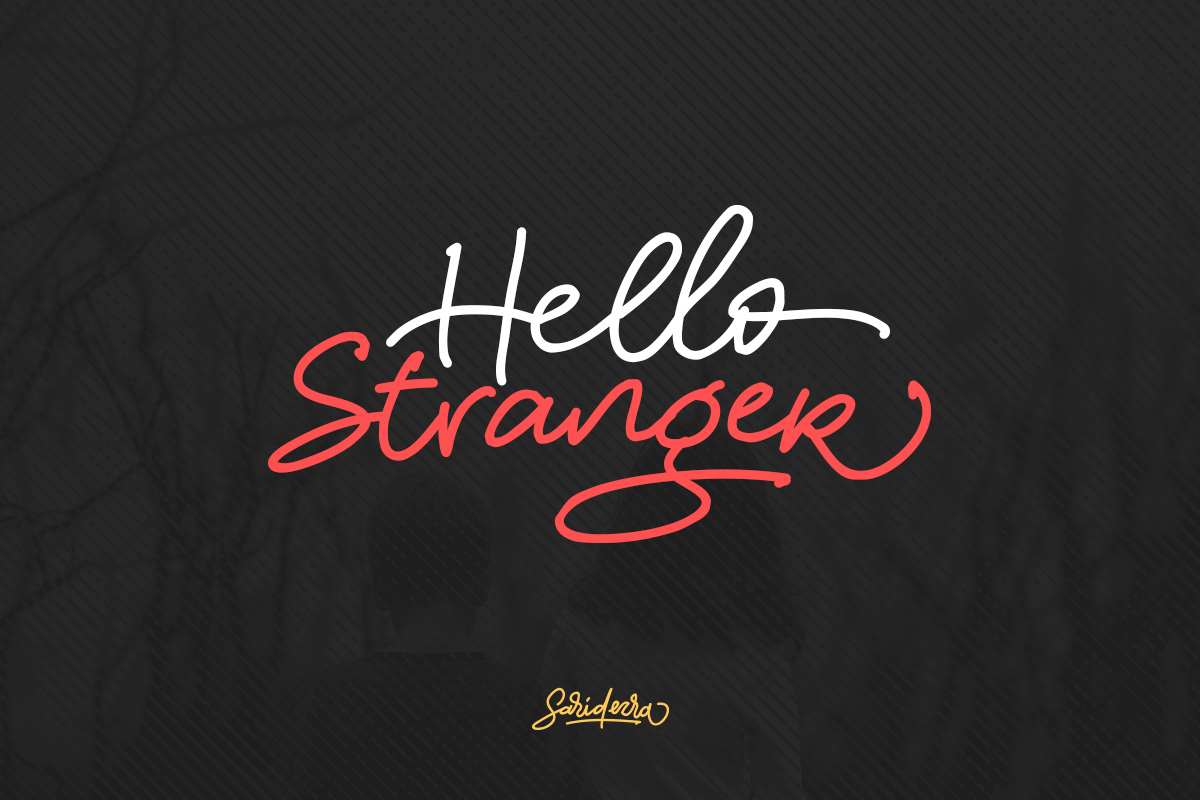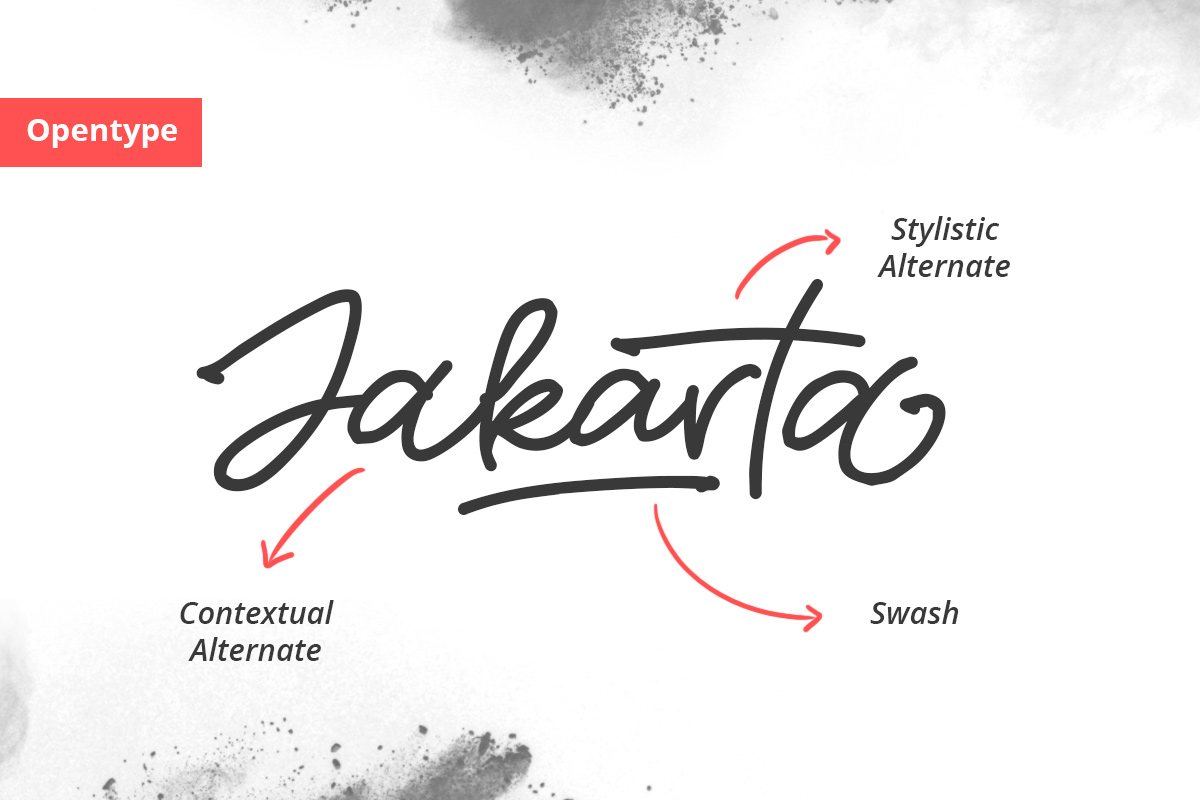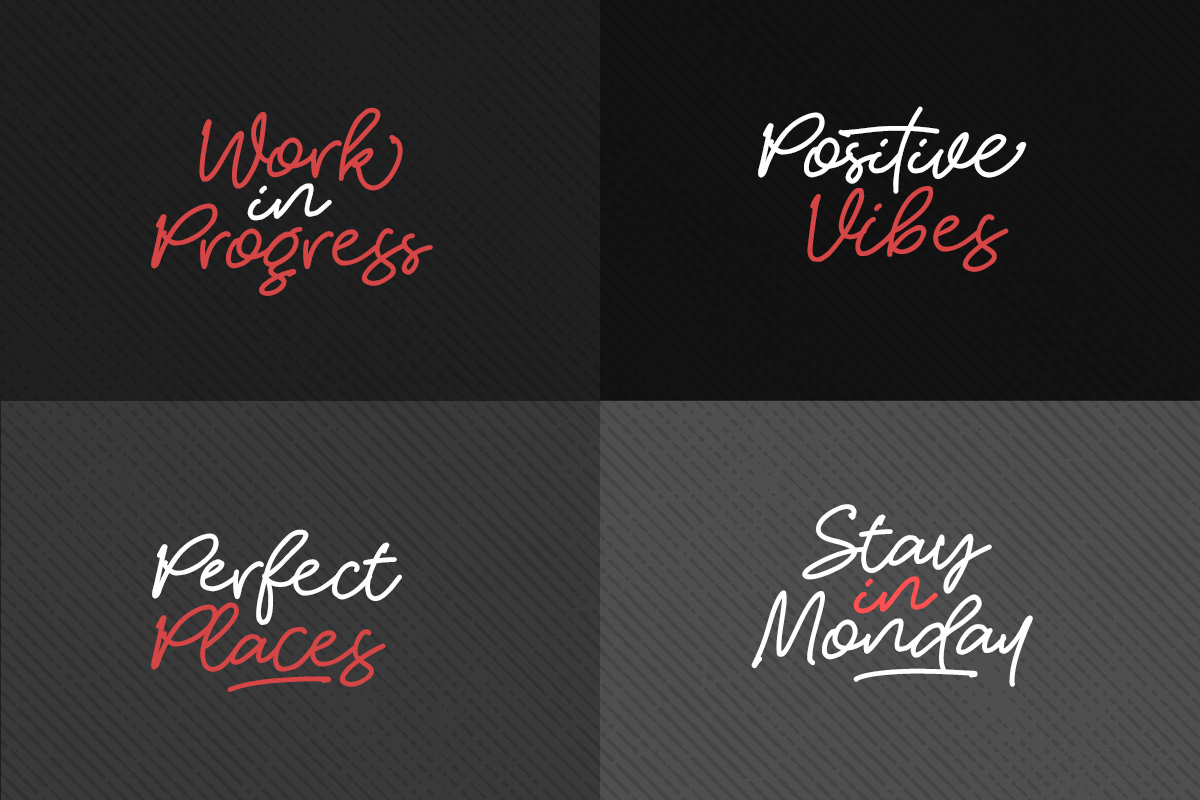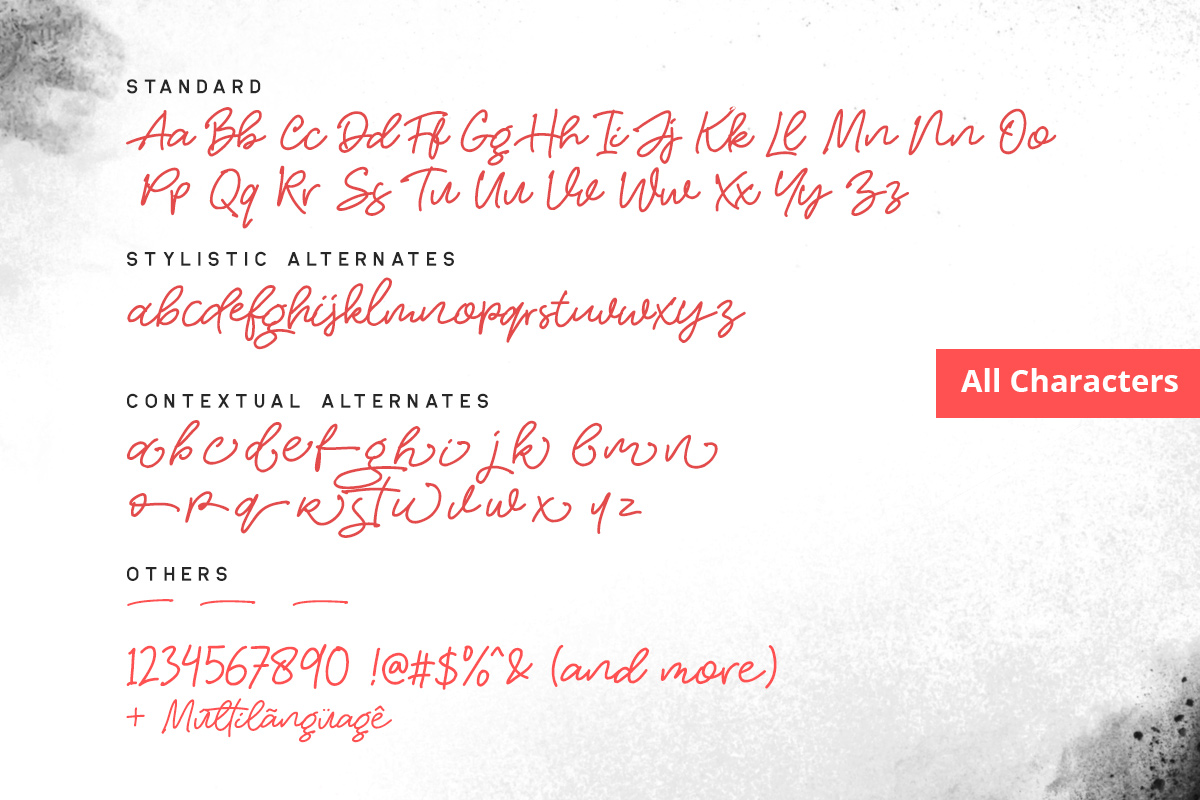
Hello Stranger - Handwritten Font
Hello Stranger
Hello Stranger is handwritten font that contain ligatures, stylistic alternate, swash, etc to create your own customized handwriting. This font is also support multi language. This font available in OTF and TTF.